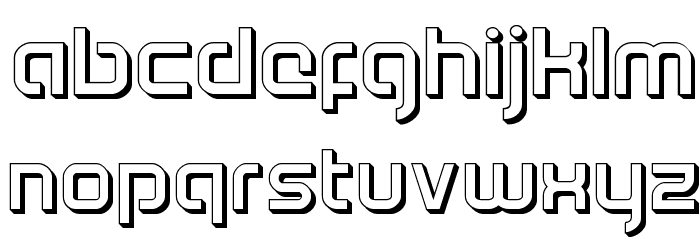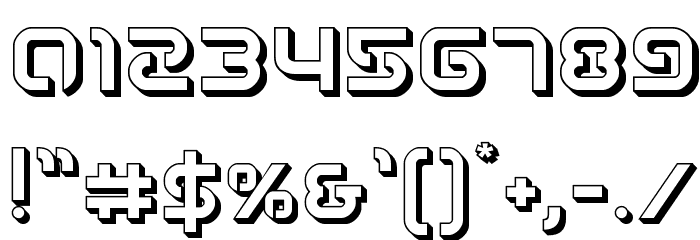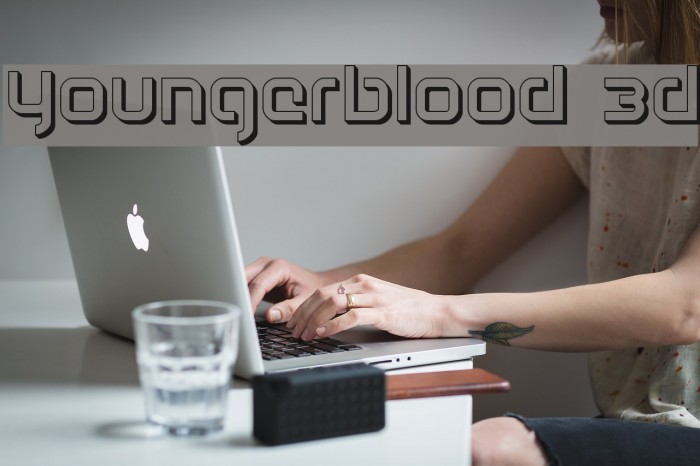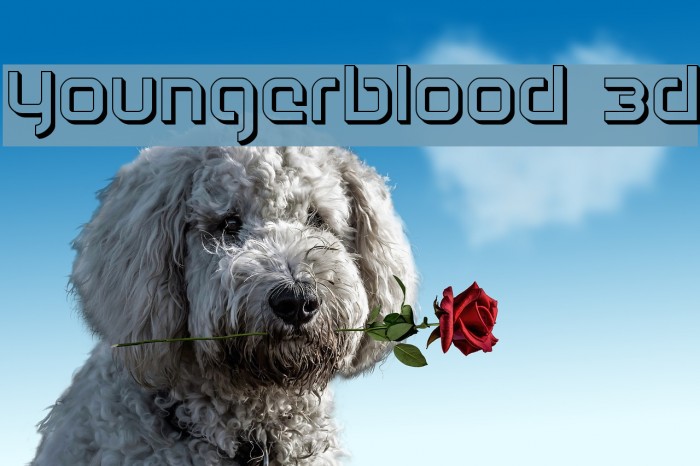
Youngerblood 3D Font
This font features a bold, three-dimensional appearance with a modern and futuristic aesthetic. The characters are outlined with a shadow effect that gives them depth and a sense of movement. The design is geometric, with rounded edges and consistent line thickness, creating a cohesive and structured look. The uppercase and lowercase letters maintain a uniform style, while the numerals and special characters complement the overall design. This font is eye-catching and ideal for projects that require a strong visual impact.
A bold, 3D geometric font with a modern, futuristic style.
- Proposed Projects: Ideal for branding, posters, video game titles, and any project needing a modern, impactful look.